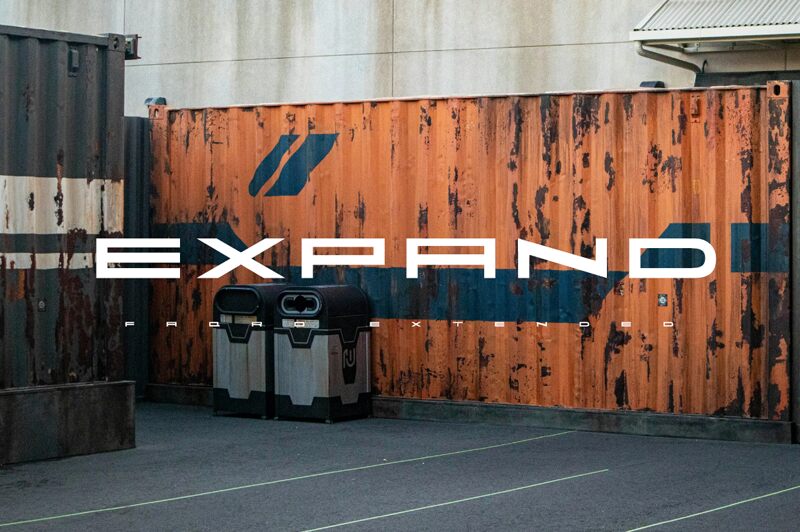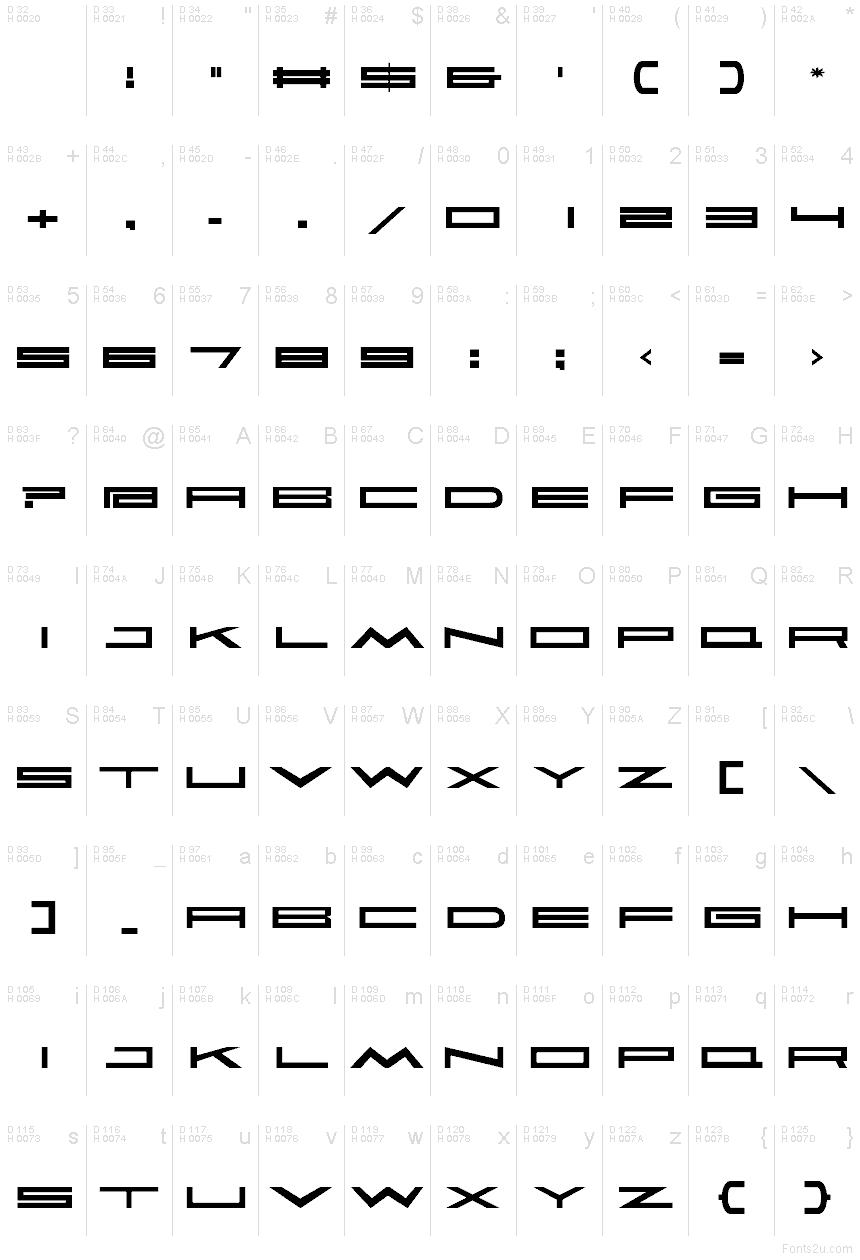
Faqro Extended Wide
Faqro Extended Wide font by ffeeaarr is a modern display typeface with expanded width. Its futuristic and geometric design gives it a unique industrial appearance which can definitely make your layout stand out. The font is minimalistic and contains many straight angles emphasized in the diagonals, horizontal, and vertical ends of letter elements.
The free techno display font can catch the attention of readers in posters, flyers, book covers, magazine covers, banners, professional logos, or personal branding projects. Other possible uses are quotes in different languages written on fonts and social media platforms like TikTok or Instagram.